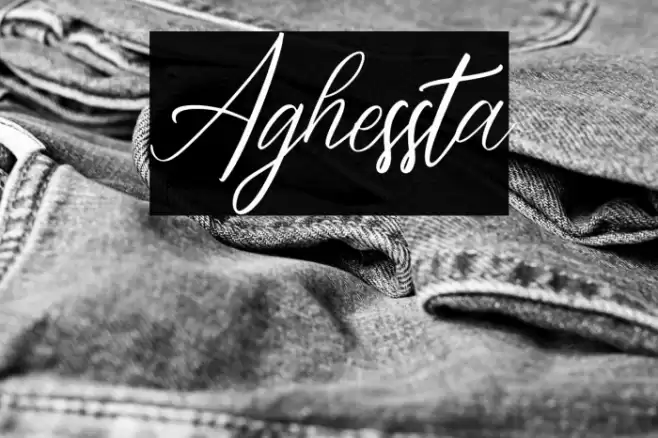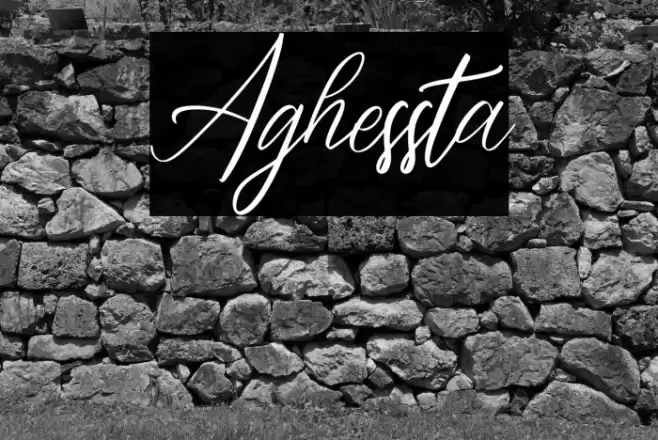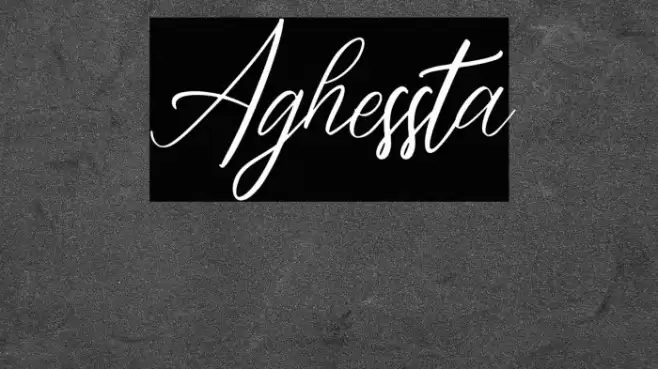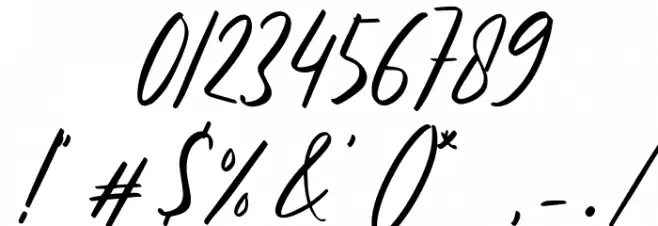
Aghessta Font
Aghessta Description
This font exudes a lively and dynamic energy, characterized by its flowing, cursive style. The letters are elegantly connected, giving it a handwritten appearance that is both sophisticated and approachable. The strokes are smooth and fluid, with a slight slant that enhances its graceful movement. The uppercase letters are bold and prominent, while the lowercase letters maintain a consistent rhythm, creating a harmonious balance. The numerals and special characters are crafted with the same attention to detail, ensuring uniformity across all elements. This font is perfect for projects that require a personal touch, such as invitations, greeting cards, or branding materials.
A lively, cursive font with a handwritten, elegant style from Uncategorized fonts.
- Proposed Projects: Ideal for wedding invitations, personal branding, greeting cards, and elegant packaging.
- Overall Style: Elegant, Handwritten
- Use Case: Logos, Invitations, Personal Branding